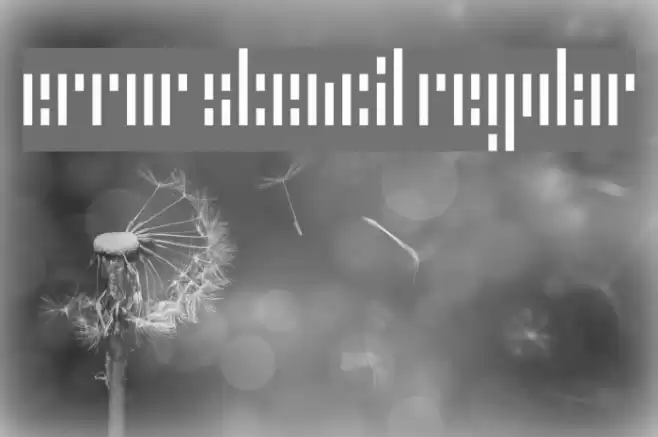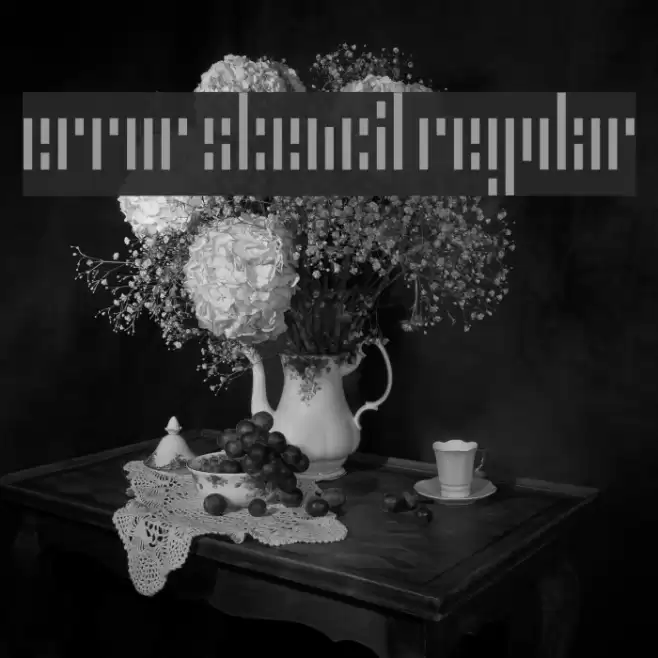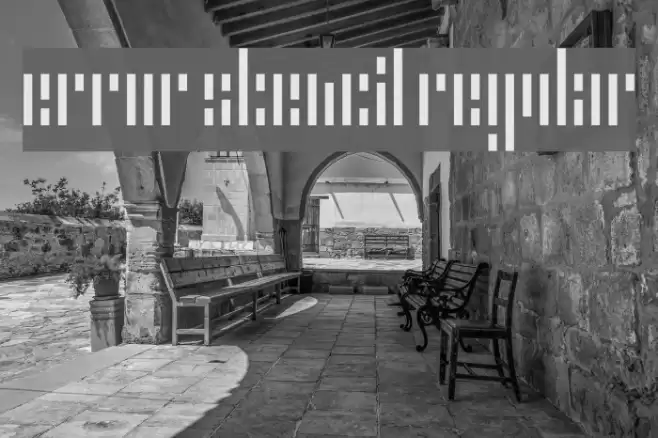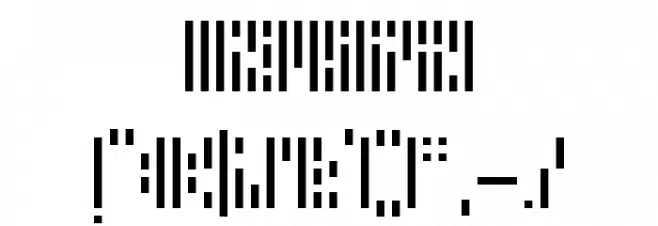
Error Stencil Regular Font
Error Stencil Regular Description
This font features a distinctive stencil design, characterized by its segmented and blocky appearance. The letters are composed of bold, vertical and horizontal strokes with intentional gaps, creating a mechanical and industrial feel. The uppercase and lowercase letters maintain a consistent height, while the numerals and special characters follow the same segmented style. This font is highly legible and stands out due to its unique construction, making it suitable for attention-grabbing designs.
A bold, segmented stencil font with an industrial look from Futuristic fonts.
- Proposed Projects: Ideal for military-themed designs, industrial branding, posters, and signage where a bold statement is needed.
- Overall Style: Industrial, Modern